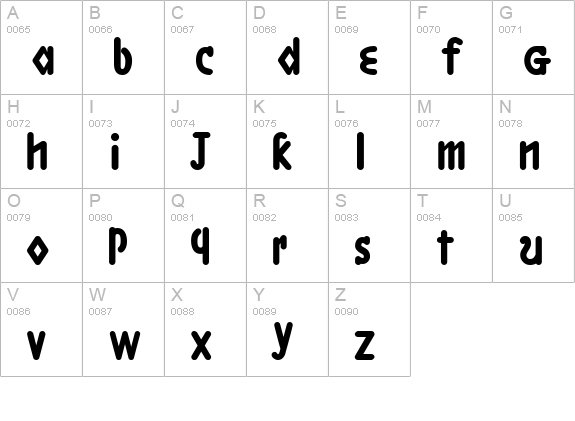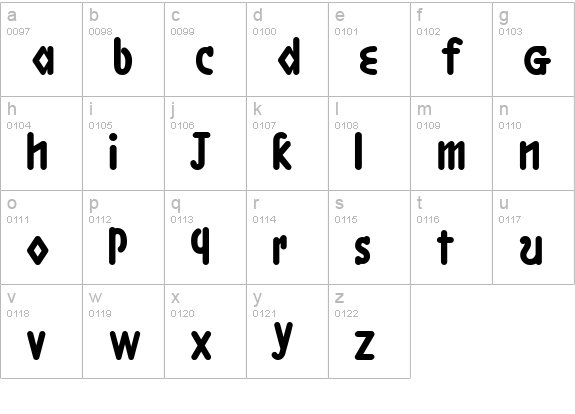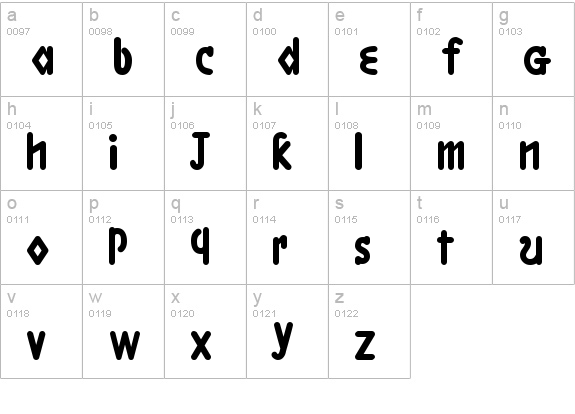
Boston LineBold Font Details
Boston LineBold is a stylish and modern font that exudes a sense of sophistication and elegance. Its clean lines and bold design make it perfect for a wide range of design projects, from branding to print materials. This versatile font is sure to make a statement and capture the attention of your audience. The best part? Boston LineBold is available for free download at FontsMarket.com. This means you can easily access this high-quality font and incorporate it into your designs without any cost. Don't miss out on the opportunity to enhance your projects with this stunning typeface. Download Boston LineBold today and elevate your designs to the next level.